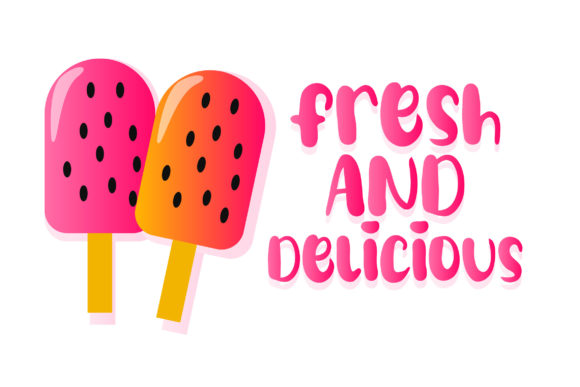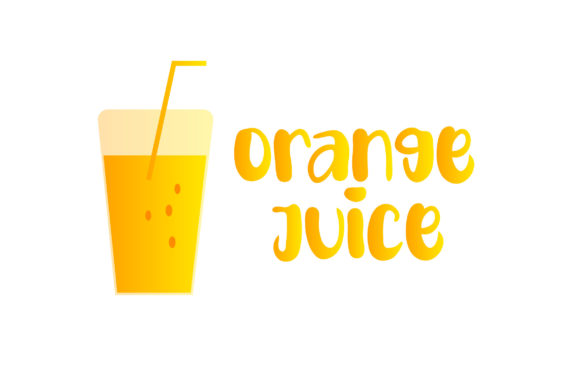
Oktober Font
db-ku.com - Script & Handwritten -- Oktober is a fun and friendly handwritten font. Warm, romantic and jolly, this font will turn each of your project ideas into real works of art. Have fun with this beautiful font and explore its endless variations.